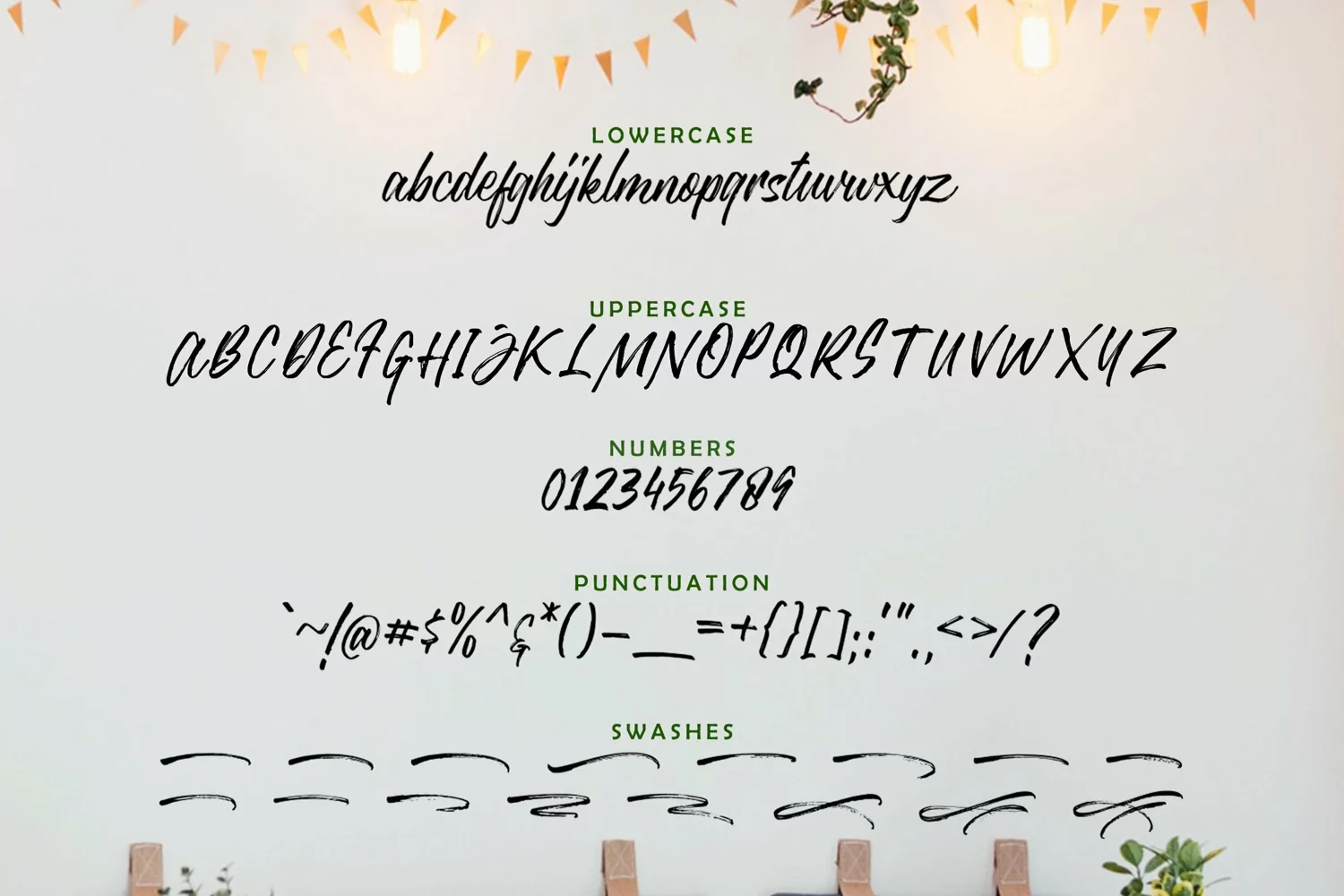
Justlyne is a handwritten font that suits your needs
in designing a logotype, product packaging, posters, image on the
website, photo for social media, writing books and etc. Justlyne font
created with creative hand with given natural teksture make brush pen.
This font is always exciting to design you create.
Justlyne also comes with uppercase, lowercase, number, punctuation and multilingual support.
- Stylistic Alternate
- Ligature